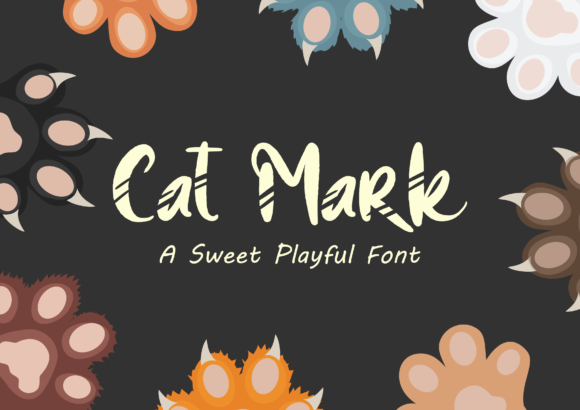
Are you looking for a font that will add a touch of whimsy and charm to your next project? Look no further than Cat Mark Font! This playful font is perfect for adding a personal touch to invitations, greeting cards, posters, and more.
Cat Mark Font was created by loklike and features a cast of delightful characters that seem to dance along the baseline. The result is a font that is both eye-catching and easy to read.
* It's perfect for adding a personal touch to any project.
* The playful characters will add a touch of whimsy and charm.
* It's easy to read, even at small sizes.
* The wide range of characters allows you to create unique and eye-catching designs.